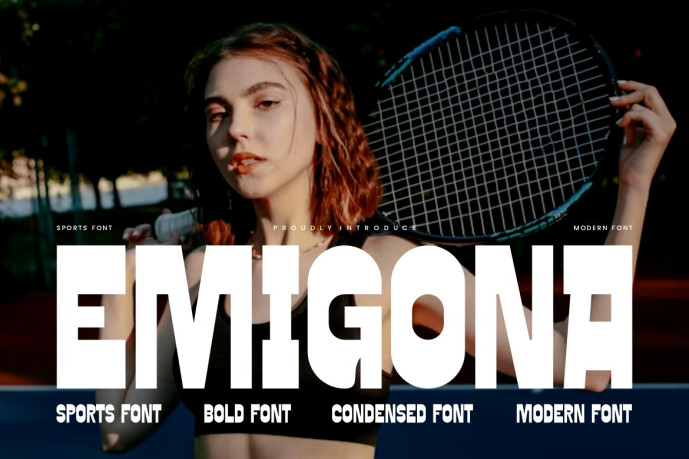
Power up your visual impact with Emigona, an ultra-bold condensed sports font engineered for raw energy and modern athletic performance! Featuring heavy, solid blocky proportions, tight geometric cutouts, and commanding presence, this typeface delivers strength and confidence in every character.
Ideal for sports team branding, fitness apparel, athletic posters, stadium signage, action event flyers, and high-energy logos, Emigona ensures your headlines lead the pack.